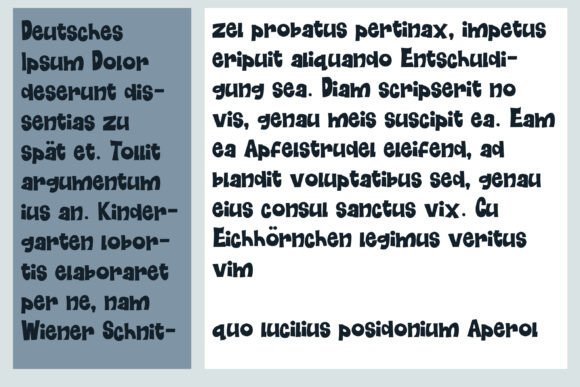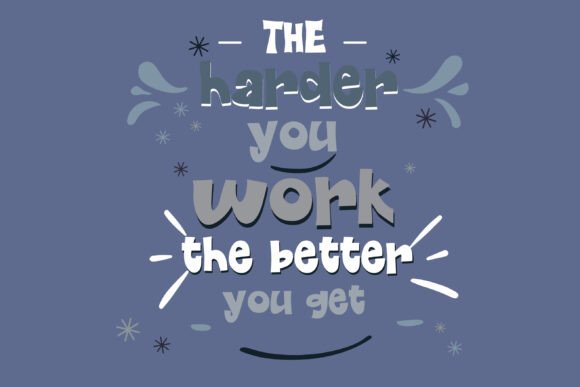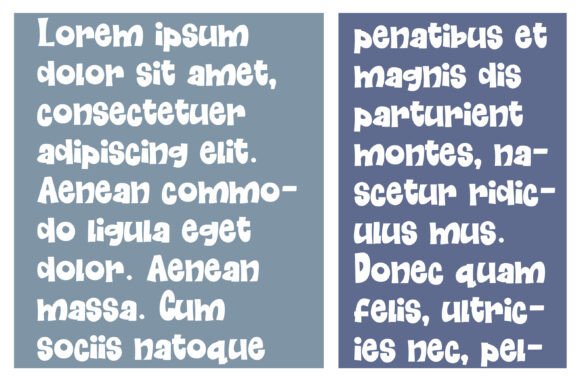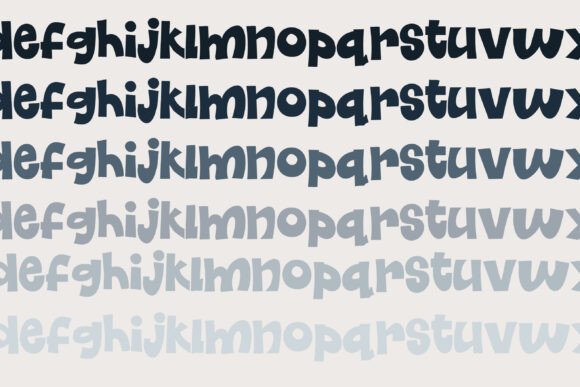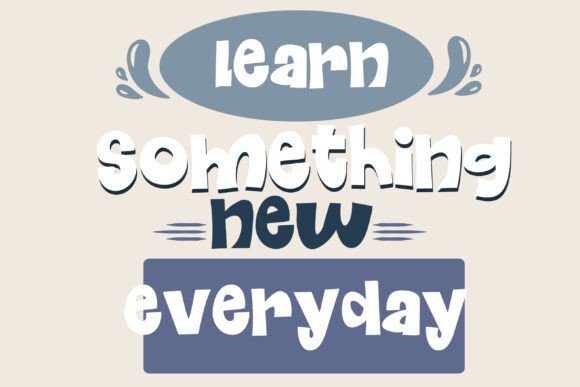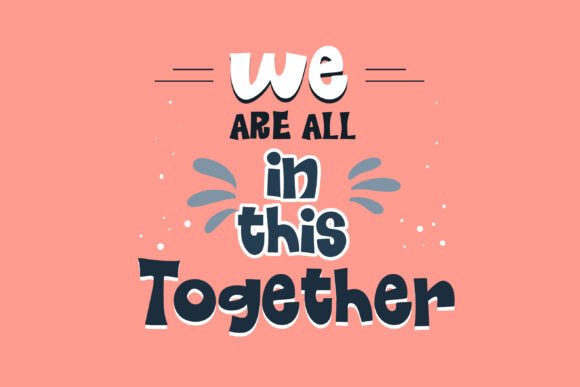
Introduction to Shoeby Doo Font
This hand-crafted font is a whimsical sans serif that is great for titles, displays, posters and more.
A hand-crafted font is a font that is designed to look like it was written by hand It is often used for invitations, greeting cards, and other items.
Shoeby Doo Font offers exceptional quality and versatility, making it a valuable addition to your design toolkit. Whether you’re creating for personal projects or commercial use, Shoeby Doo Font delivers professional results.